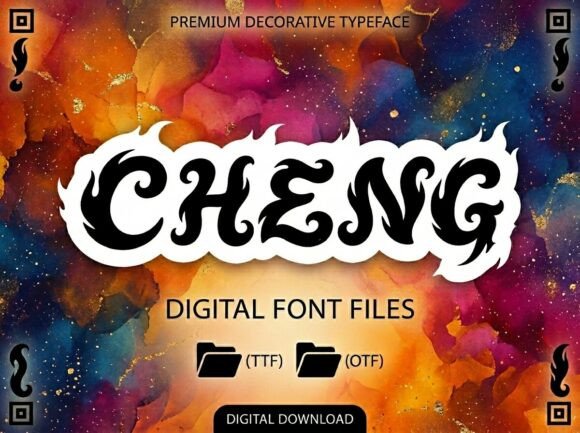
Unleash the Fiery Spirit of Your Designs with Cheng Font
Are you looking for a typeface that can add a spark to your creative projects? Look no further than Cheng, a premium decorative font that embodies the untamed energy of a roaring flame. With its bold, high-contrast display and fluid, sweeping curves, Cheng is the perfect choice for designers and crafters who want to ignite their designs with passion and creativity.
The Inspiration Behind Cheng
Cheng’s design is inspired by the rhythmic movement of fire, with each character meticulously crafted to mimic the dynamic, wavy patterns of a flame. The font’s organic, wavy silhouette gives text a sense of heat and motion, making it perfect for designs that require a bold and attention-grabbing approach. Whether you’re creating a logo for a spicy food brand, a label for a hot sauce, or a title for a gaming project, Cheng’s fiery spirit is sure to captivate your audience.
Key Features of Cheng Font
So, what makes Cheng font stand out from the rest? Here are some of its key features:
- Bold, high-contrast display: Cheng’s bold and high-contrast design makes it perfect for display text, headlines, and titles.
- Fluid, sweeping curves: The font’s fluid curves give text a sense of movement and energy, making it perfect for designs that require a dynamic approach.
- Sharp, flicking terminals: Cheng’s sharp terminals add a touch of sophistication and elegance to the font, making it perfect for designs that require a balance of boldness and refinement.
- Organic, wavy silhouette: The font’s organic silhouette gives text a sense of heat and motion, making it perfect for designs that require a bold and attention-grabbing approach.
Use Cases for Cheng Font
So, what are some use cases for Cheng font? Here are some ideas to get you started:
- Spicy food branding: Cheng’s fiery spirit makes it perfect for spicy food brands, hot sauce labels, and restaurant menus.
- Gaming titles: The font’s bold and dynamic design makes it perfect for gaming titles, logos, and in-game text.
- High-energy event posters: Cheng’s energetic and attention-grabbing design makes it perfect for event posters, flyers, and brochures.
- Edgy streetwear designs: The font’s bold and sophisticated design makes it perfect for streetwear designs, logos, and typography.
Why Choose Cheng Font?
So, why choose Cheng font for your creative projects? Here are some reasons to consider:
- Unique and distinctive design: Cheng’s unique design makes it stand out from other fonts, ensuring that your designs will be noticed and remembered.
- High-quality and versatile: The font is designed to be versatile and adaptable, making it perfect for a wide range of design applications.
- Easily readable and legible: Despite its bold and dynamic design, Cheng is easily readable and legible, making it perfect for use in a variety of contexts.
In conclusion, Cheng font is a premium decorative typeface that embodies the untamed energy of a roaring flame. With its bold, high-contrast display and fluid, sweeping curves, Cheng is the perfect choice for designers and crafters who want to add a spark to their creative projects. Whether you’re creating a logo for a spicy food brand, a title for a gaming project, or a poster for a high-energy event, Cheng font is sure to ignite your designs with passion and creativity.